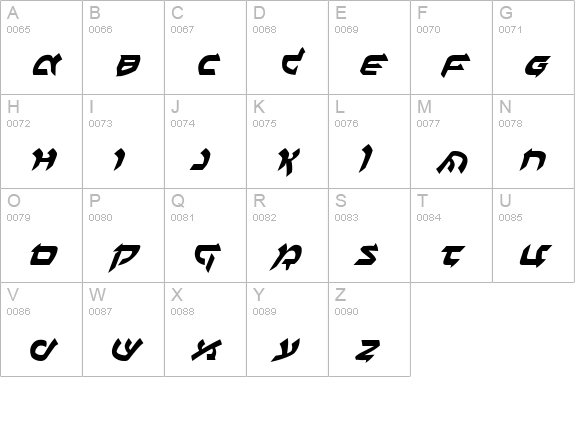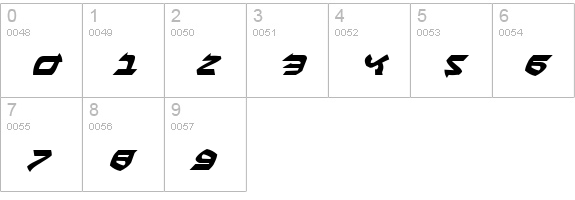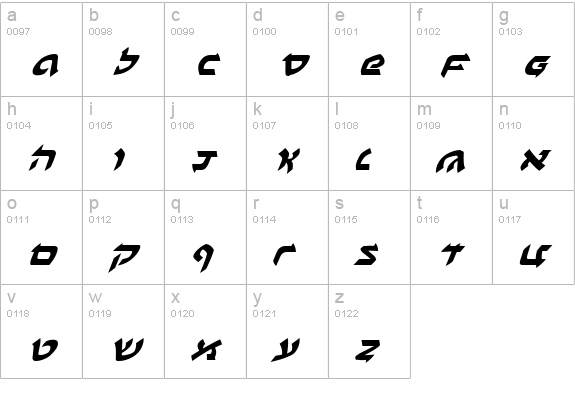
Ben-Zion Expanded Italic Font Details
Ben-Zion Expanded Italic is a distinctive, extended-width, italic variant in the Ben typeface family \xE2\x80\x94 well suited to design and typography projects.
Introducing Ben-Zion Expanded Italic font, a sleek and sophisticated typeface perfect for adding a touch of elegance to your projects. The italicized design of this font gives it a modern and dynamic feel, making it ideal for use in branding, advertising, and editorial layouts. With its unique and stylish appearance, Ben-Zion Expanded Italic font is sure to make a statement and captivate your audience. The expanded width of the characters adds a sense of drama and flair, making it stand out from other fonts. Best of all, Ben-Zion Expanded Italic font is available for free download at FontsMarket.com. So whether you're a designer looking to add a fresh look to your designs or a business owner in need of a distinctive font for your branding, this font is a fantastic choice. Don't miss out on the opportunity to enhance your projects with this stunning typeface!